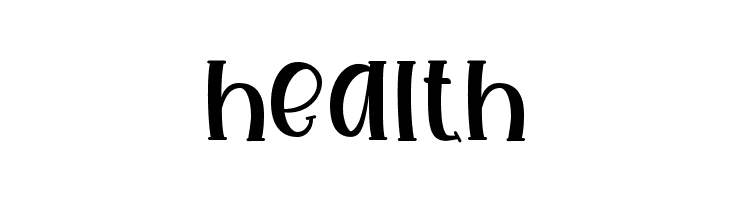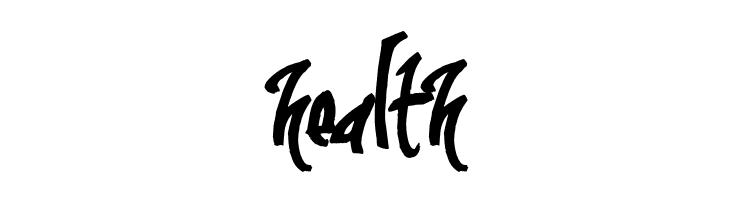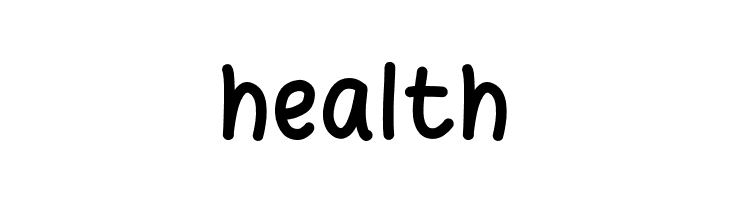
A playful and whimsical font with bold, curvy letterforms and dynamic strokes.
A bold, graffiti-inspired font with dynamic and expressive characters.
A lively, fluid handwritten script with smooth curves and a personal touch.
A lively, fluid handwritten font with smooth, connected strokes.
A cursive, handwritten-style font with elegant, flowing strokes.
A playful, bold handwritten font with rounded edges and a casual style.
A playful, handwritten-style font with bold, consistent strokes and a casual vibe.
A bold, modern font with strong, uniform characters.
Elegant handwritten script font.
Decorative handwritten script font.